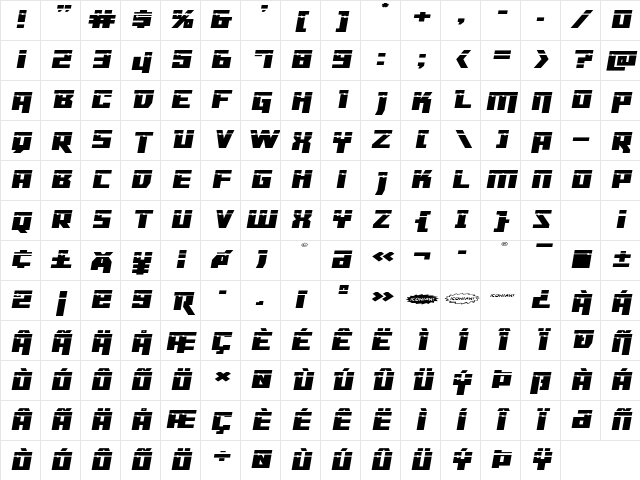
Dangerbot Expanded Laser Expanded
Style: Expanded
Design Context for Dangerbot Expanded Laser
Dangerbot Expanded Laser is a composed and adaptable typeface that performs quietly and consistently across a wide range of design contexts.